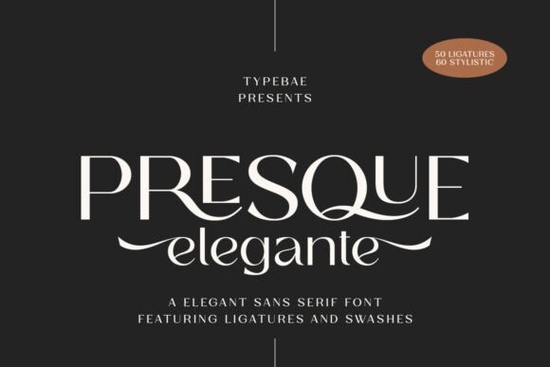
Presque Elegante Font is a versatile and refined sans serif typeface that brings a touch of sophistication to any design project. Whether you're working on branding, packaging, or social media graphics, this font offers a modern yet timeless feel. With 50 ligatures and 60 stylistic alternates, it gives designers the flexibility to create unique and elegant typography without repeating the same look.
Designed for both professional and hobbyist creators, Presque Elegante Font fits well in various design contexts. Its clean lines and balanced structure make it easy to read while maintaining a high level of visual appeal. The font is especially useful for projects that require a polished and luxurious aesthetic, such as wedding invitations, luxury product labels, or editorial layouts.
One of the standout features of Presque Elegante Font is its extensive set of ligatures and alternates. These allow for more natural and visually pleasing text, especially when used in longer passages. For example, certain letter combinations can be replaced with custom glyphs that enhance the overall flow and readability of the text. This makes the font ideal for both short headlines and extended body copy.
How to Use Presque Elegante Font in Different Projects
Designers often look for fonts that can adapt to multiple uses without losing their character. Presque Elegante Font excels in this area. Here are a few common applications:
- Branding and Logos: The font’s sleek design works well for company names and logos that aim for a modern and professional look.
- Print Materials: From business cards to brochures, this font adds a touch of class to any printed piece.
- Web Design: When used in headings or buttons, Presque Elegante Font can help create a visually striking and cohesive website layout.
Why Choose Presque Elegante Font?
For creatives who value both aesthetics and practicality, Presque Elegante Font is a solid choice. It’s not just about looking good it’s also about being easy to work with. The font supports multiple languages and includes a wide range of characters, making it suitable for international projects as well.
Best Practices for Working with Presque Elegante Font
To get the most out of Presque Elegante Font, consider the following tips:
- Use it for emphasis: Pair it with simpler fonts for body text to create contrast and hierarchy.
- Experiment with spacing: Adjusting letter and line spacing can dramatically change the look and feel of your design.
- Try different weights: Many fonts include light, regular, and bold versions, which can add depth to your compositions.
By understanding how to use Presque Elegante Font effectively, you can elevate your designs and make them more visually engaging. It’s a great tool for anyone looking to add a touch of class to their creative work.
Whether you're a small business owner, a print-on-demand seller, or a creative hobbyist, this font offers value across a range of applications. Its combination of style, versatility, and ease of use makes it a valuable addition to any designer’s toolkit.